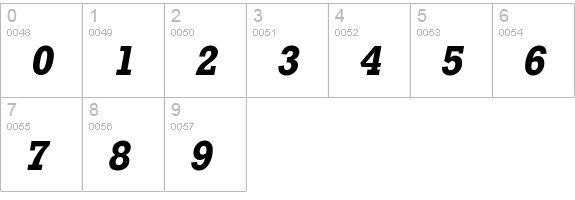
StaffordSerial-BoldItalic is a stylish and modern font that exudes elegance and sophistication. With its bold and italic design, this typeface brings a touch of flair to any project or design. Perfect for headings, titles, and other eye-catching text, StaffordSerial-BoldItalic commands attention and leaves a lasting impression. What's even better is that StaffordSerial-BoldItalic is available for free download at FontsMarket.com. Now you can easily access this stunning font and enhance your creations with its unique style. Don't miss out on the opportunity to elevate your designs with StaffordSerial-BoldItalic - get your free download today!